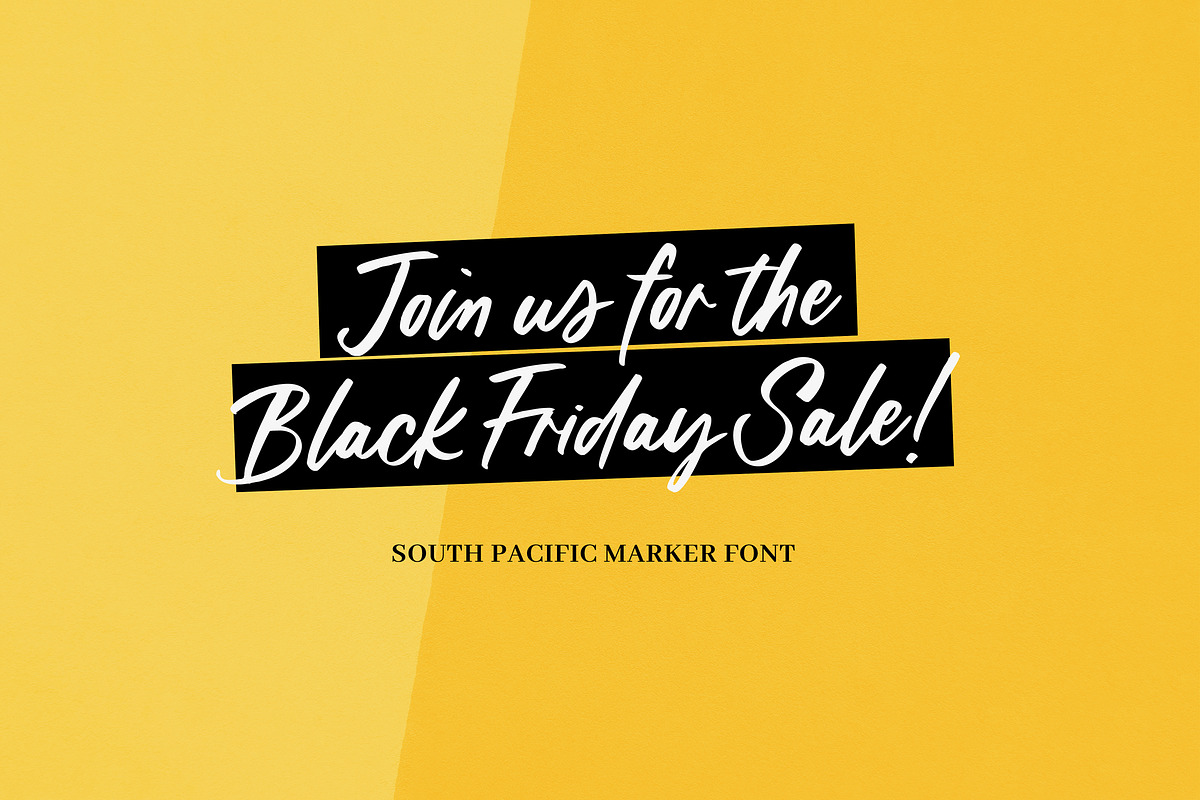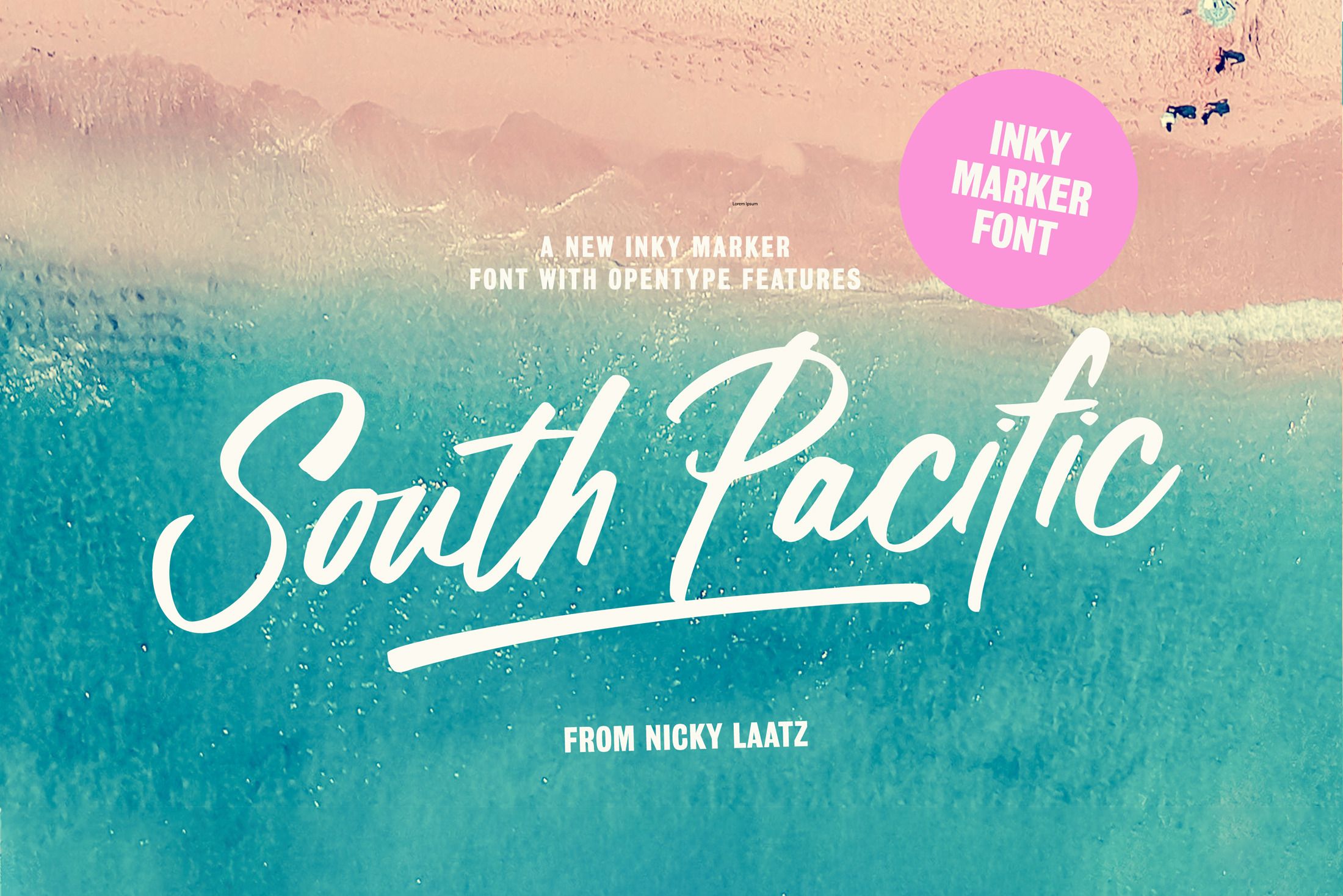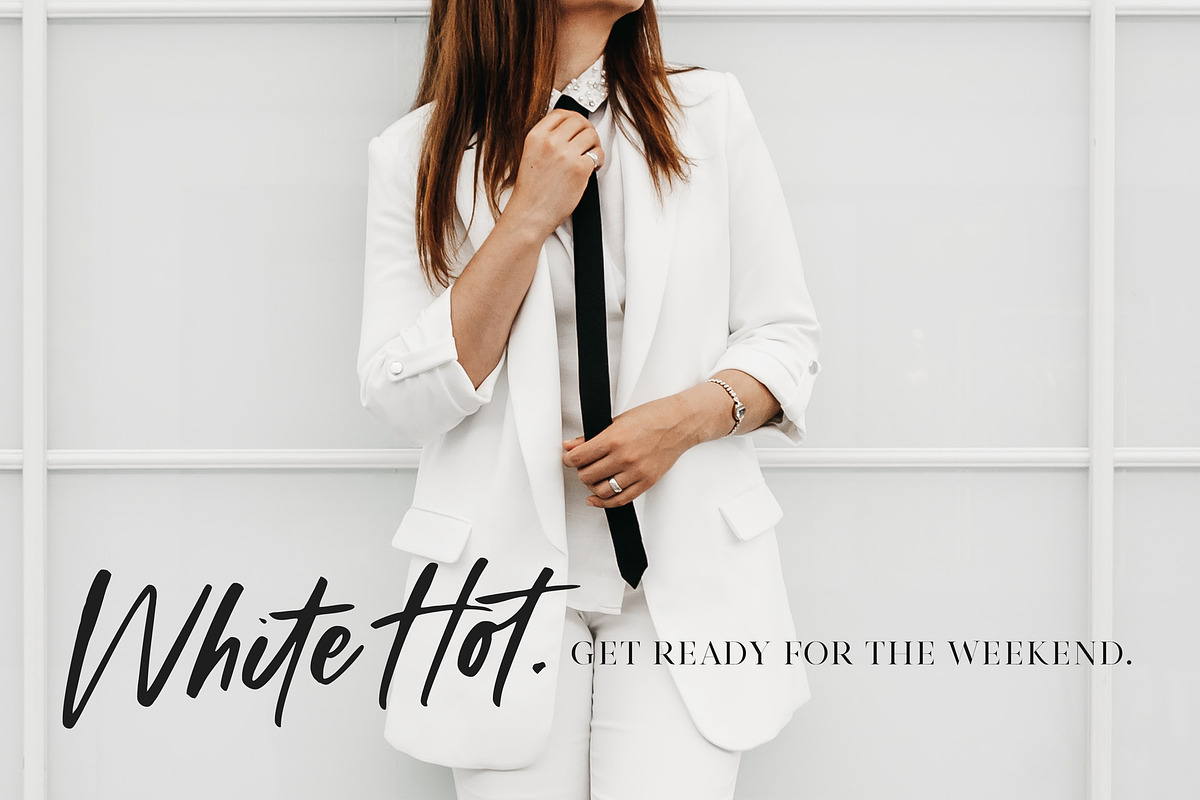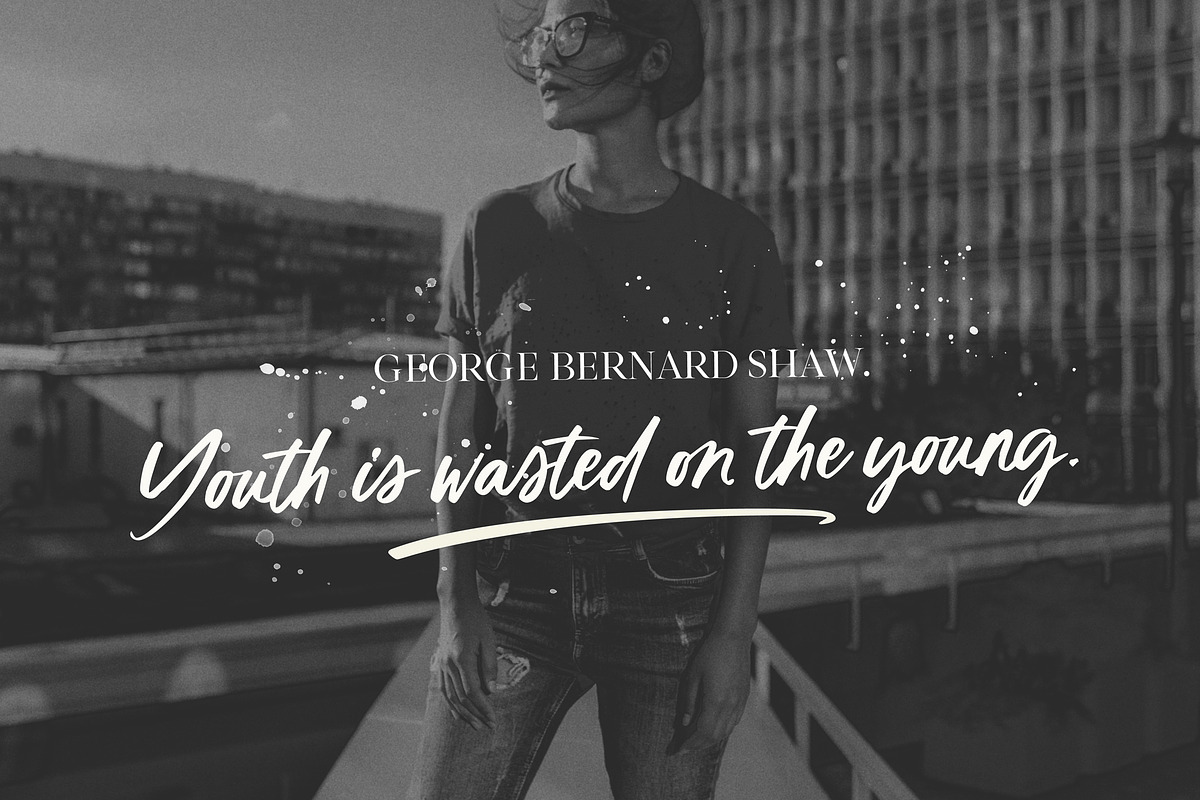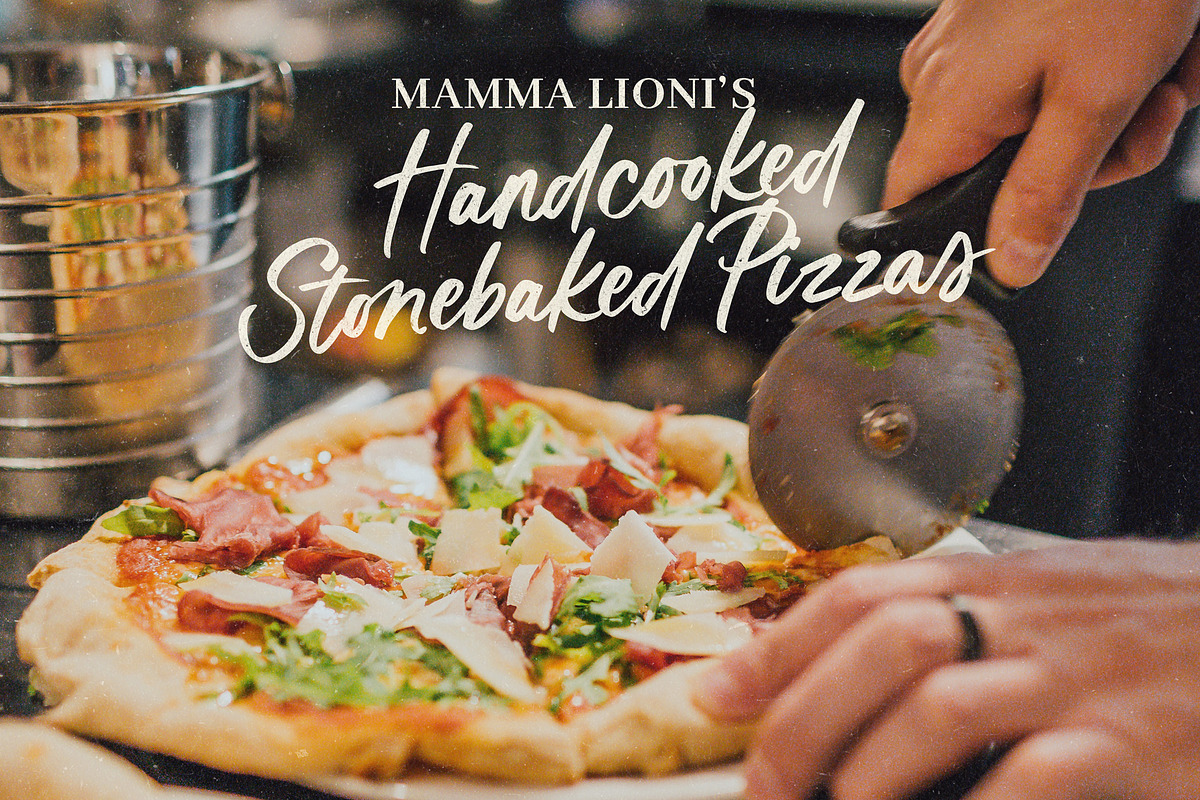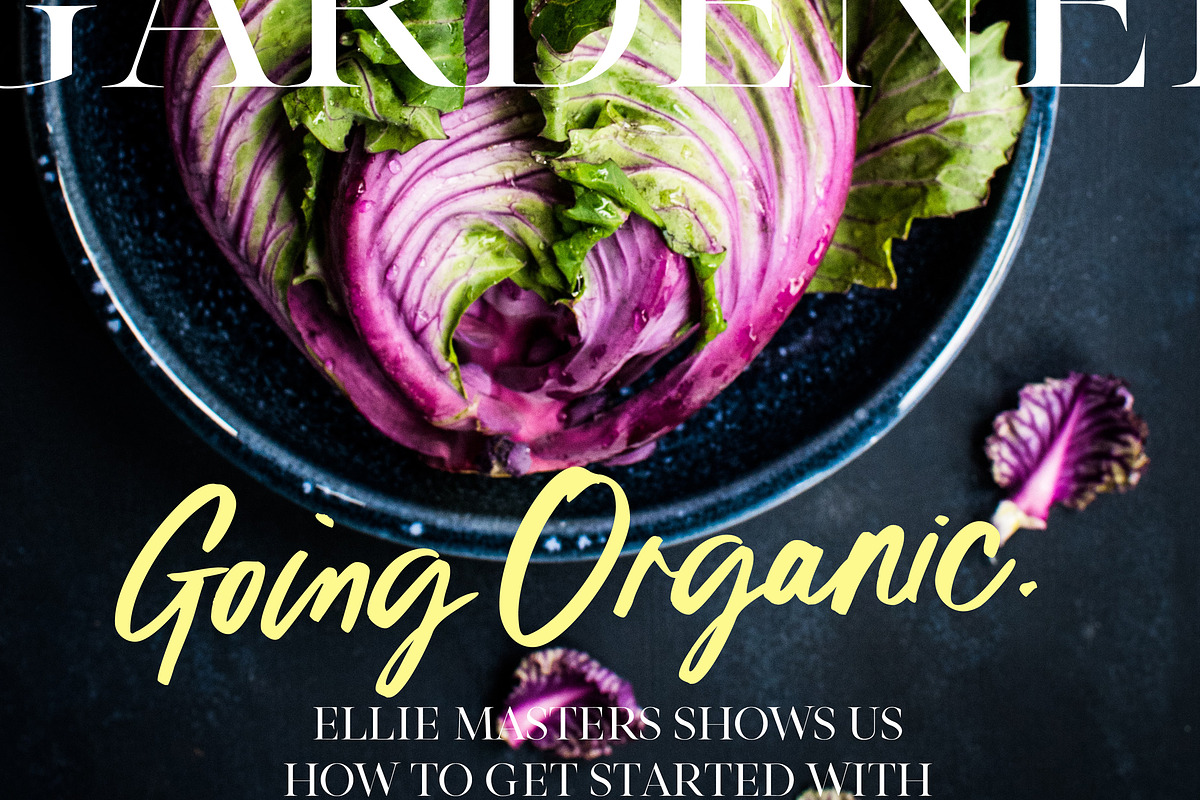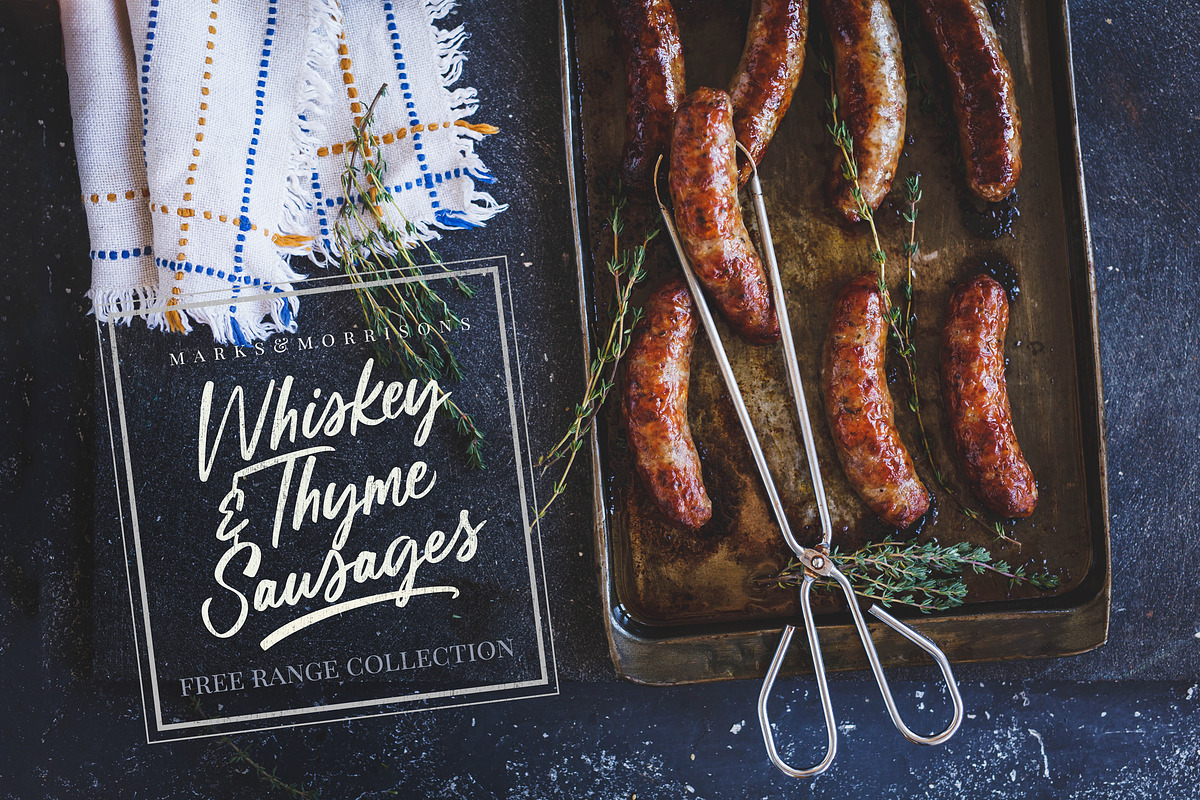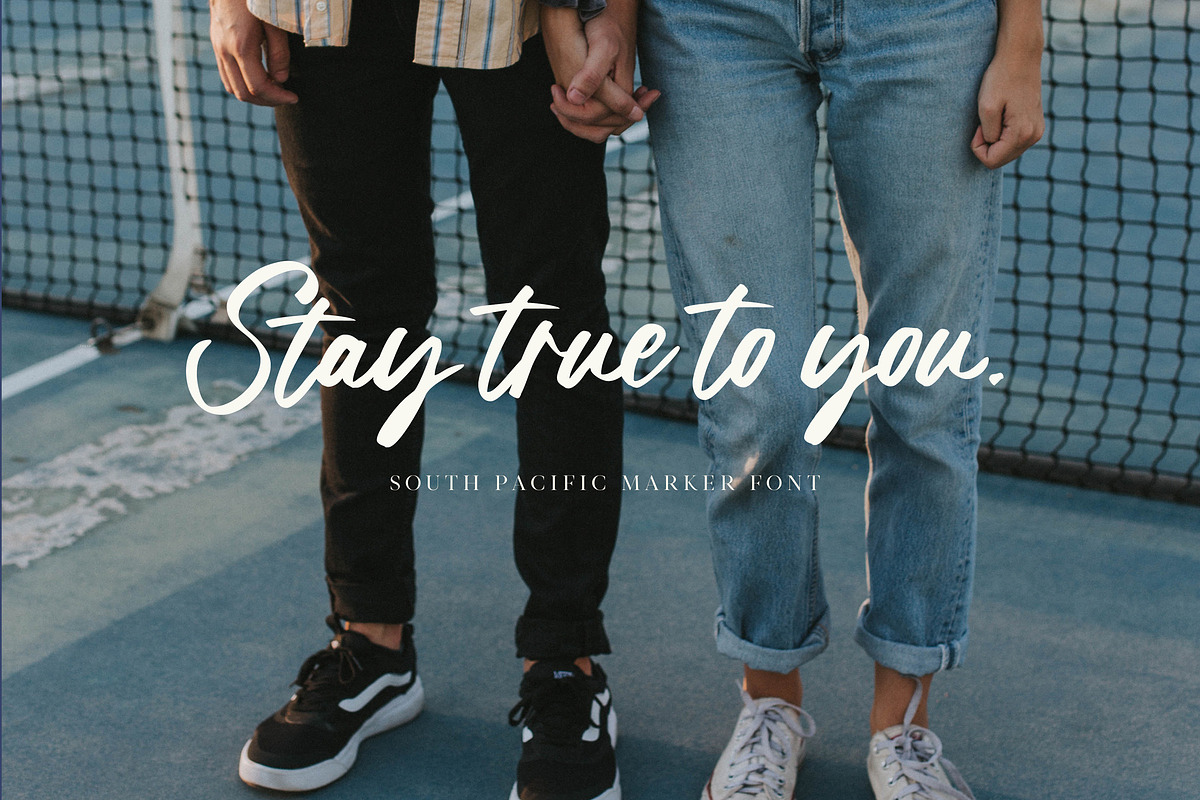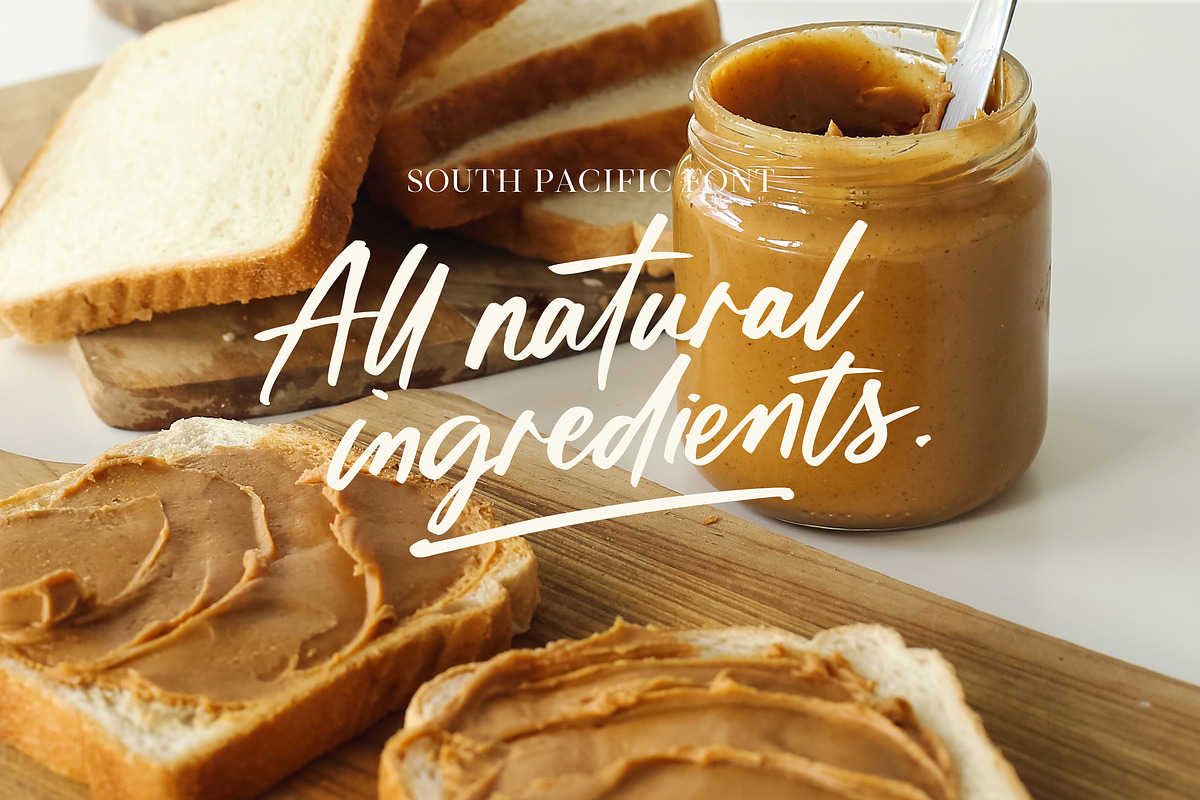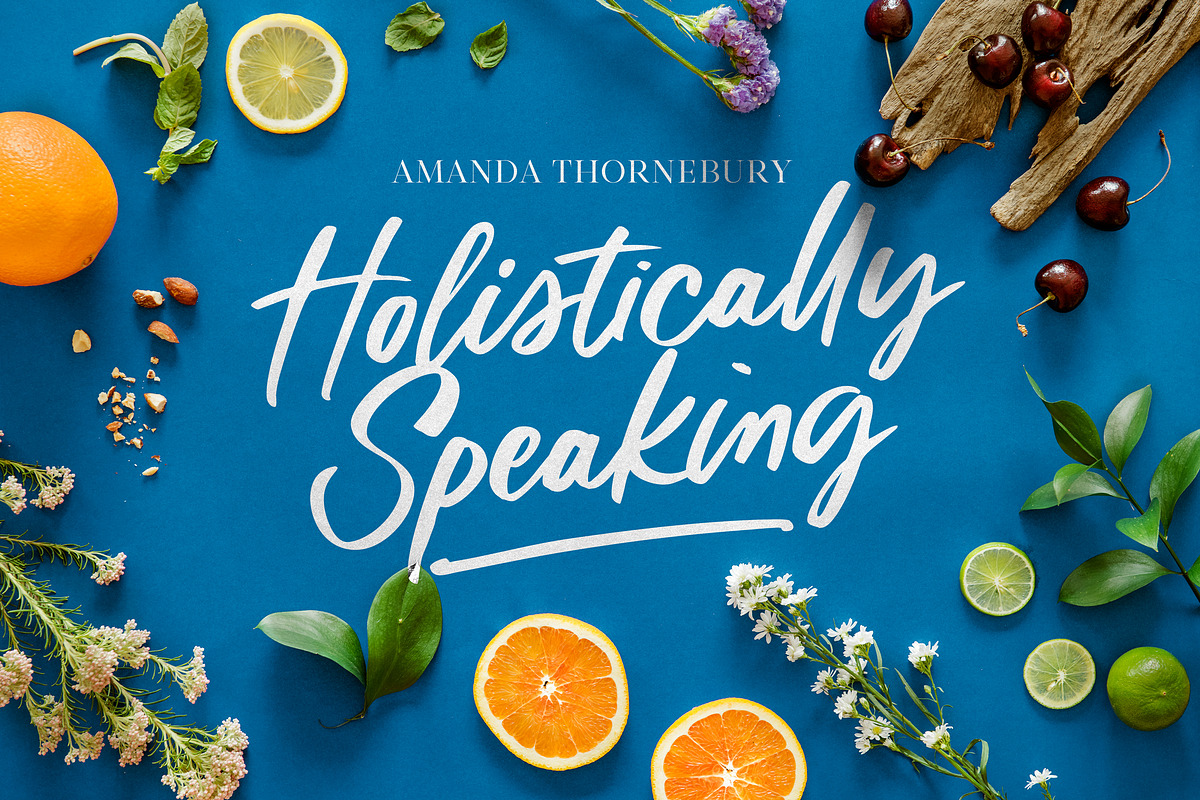
South pacific Marker Font
Say hello to South Pacific Marker, a new bold inky font with a casual handwritten feel. Perfect for making eye-catching headlines and head-turning statements!
Natural-looking ligatures
Turn on the Opentype features in the app you are typing with to take full advantage of all South Pacific's beautiful ligatures & extra characters.
Bonus Swashes
To make your designs even more punchy, 4 bonus swashes are also included in the glyphs set - access via your glyphs panel in Photoshop or Illustrator.